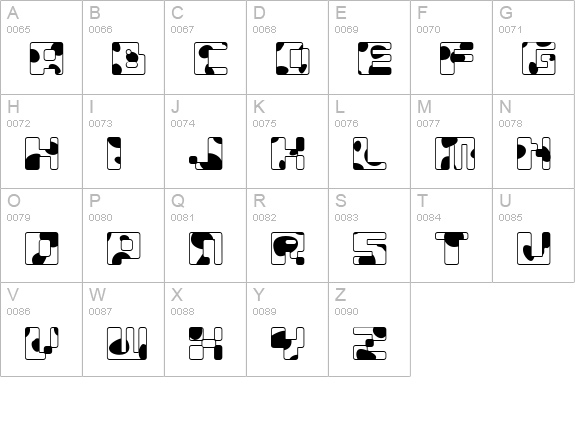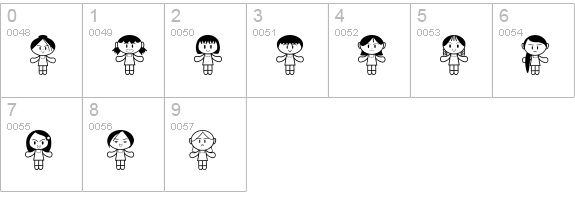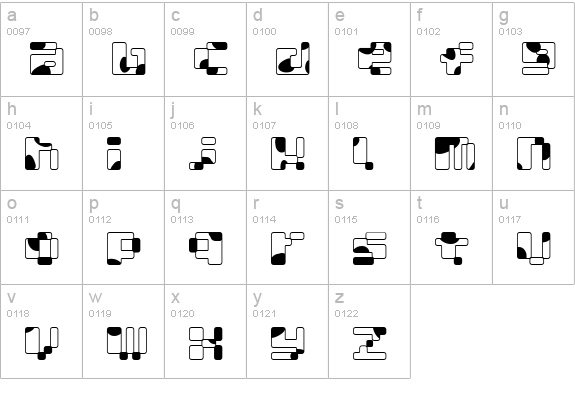
MOOGIRL ALP Font Details
MOOGIRL ALP font is a whimsical and playful typeface that combines elegance with a touch of charm. Its unique design features flowing lines and rounded edges, giving it a soft and inviting appearance. This font is perfect for adding a touch of personality to any project, whether it be for invitations, branding, or social media graphics. What makes MOOGIRL ALP font even more appealing is that it is available for free download at FontsMarket.com. This means you can easily access this delightful font and incorporate it into your designs without any hassle. With its versatility and eye-catching style, MOOGIRL ALP font is sure to become a favorite choice for creatives looking to add a touch of whimsy to their work.